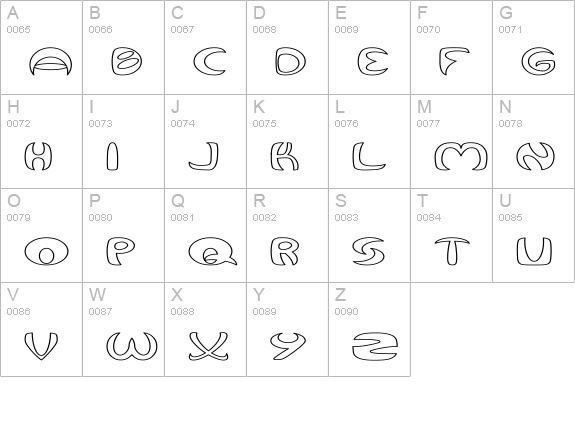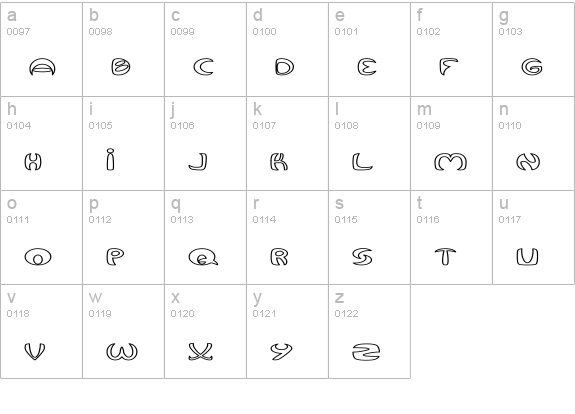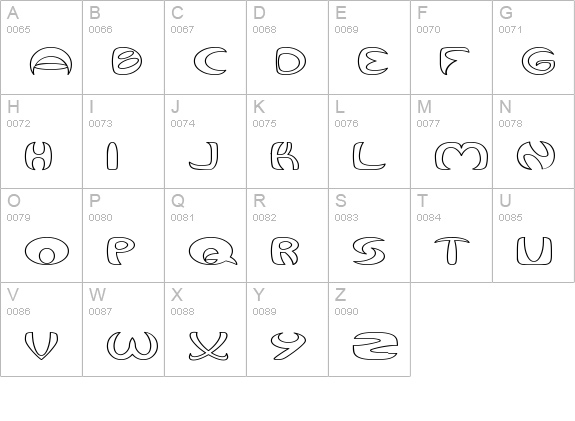
Qurve Hollow Wide is a distinctive, extended-width variant in the Qurve typeface family \xE2\x80\x94 well suited to design and typography projects.
Qurve Hollow Wide font is a beautifully crafted typeface that exudes elegance and sophistication. Its sleek and modern design makes it the perfect choice for a wide range of creative projects, from branding and advertising to web design and packaging. This font features a unique hollowed-out style, with distinct curves and clean lines that add a touch of artistic flair to any text. The wide spacing between the characters gives it a bold and impactful presence, making it ideal for headlines and titles. What sets Qurve Hollow Wide font apart is not only its striking aesthetic, but also its versatility. It can be used across various mediums and platforms, ensuring that your message is conveyed with clarity and style. Whether you are designing a logo for a high-end fashion brand or creating eye-catching social media graphics, this font will effortlessly elevate your designs to new heights. One of the best things about Qurve Hollow Wide font is that it is available for free download at FontsMarket.com. This means that you can easily access and use this stunning typeface without any cost or hassle. FontsMarket.com is a trusted source for high-quality fonts, offering a vast collection of fonts to suit all your design needs. So why wait? Embrace the sleek and sophisticated design of Qurve Hollow Wide font and take your designs to the next level. Download it for free at FontsMarket.com and let your creativity flourish.